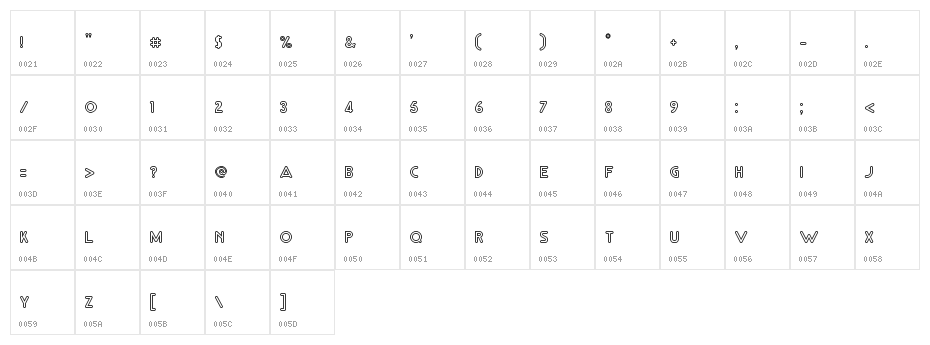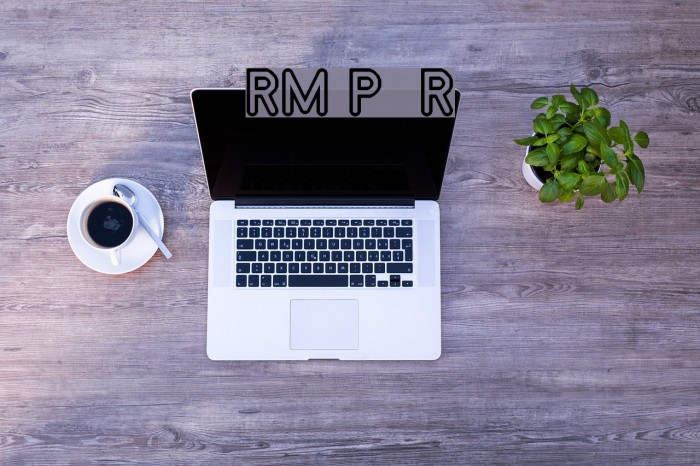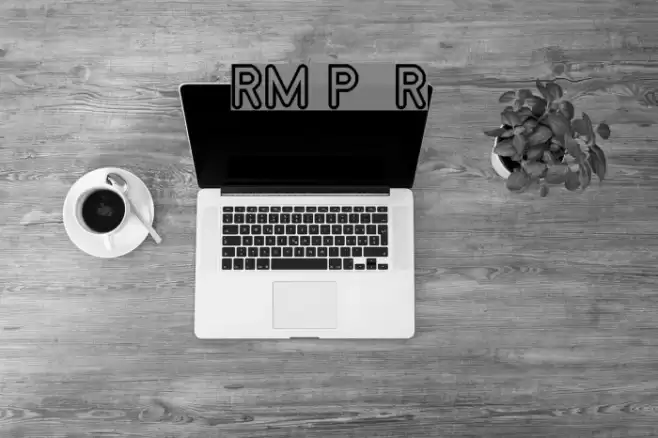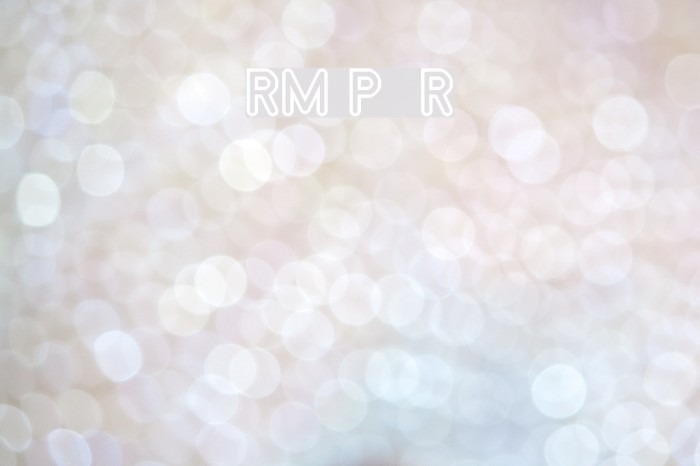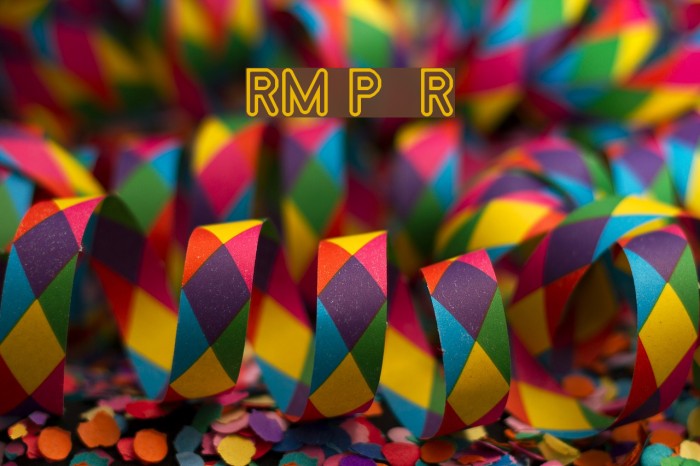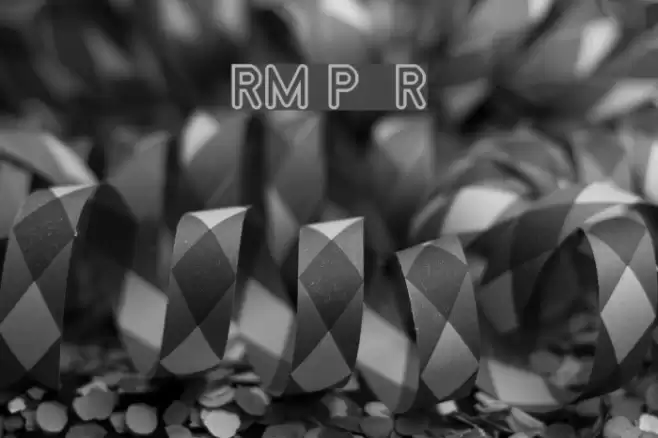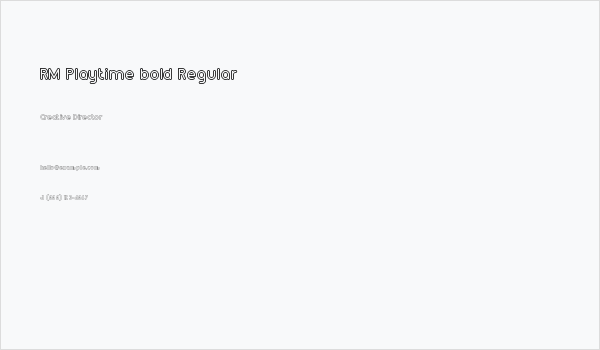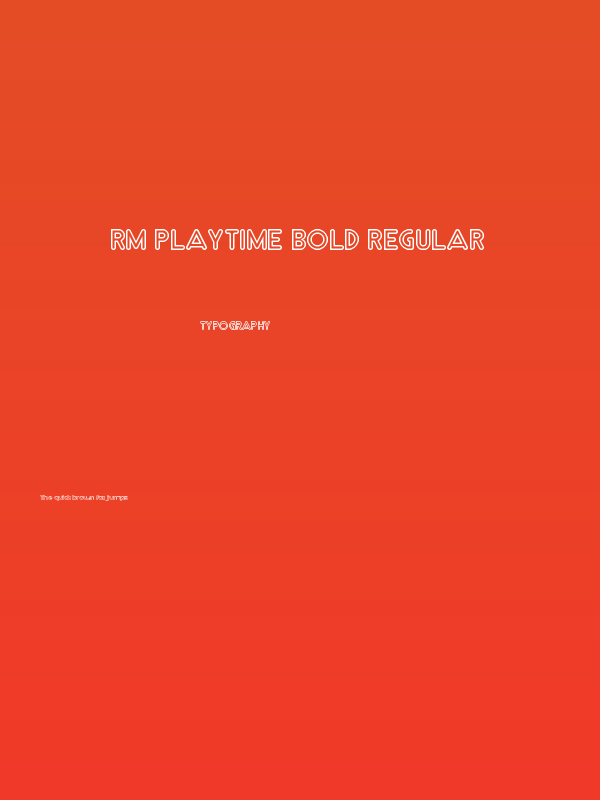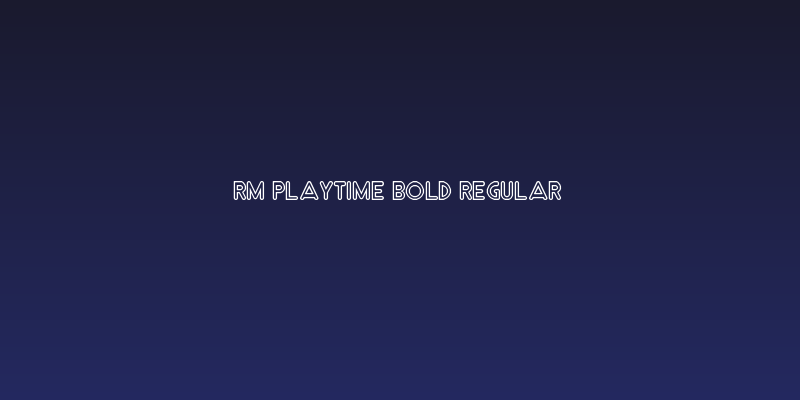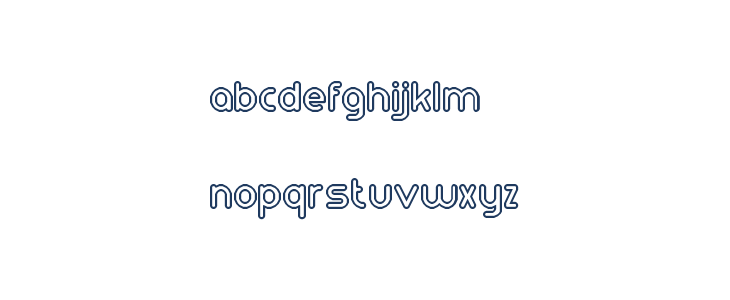
RM Playtime bold Regular Font
RM Playtime bold Regular Description
This playful and bold font features a unique outline style that gives it a lively and engaging appearance. The characters are well-proportioned with a consistent stroke width, creating a harmonious and balanced look. The uppercase and lowercase letters maintain a uniform design, enhancing readability while adding a touch of whimsy. The numbers and special characters are crafted with the same playful outline, making them perfect for creative projects. This font's distinct style makes it ideal for children's materials, playful branding, or any design that requires a fun and approachable aesthetic.
| Overall Style | Playful, Modern |
| Proposed Projects | Children's books, playful branding, posters, invitations, and educational materials. |